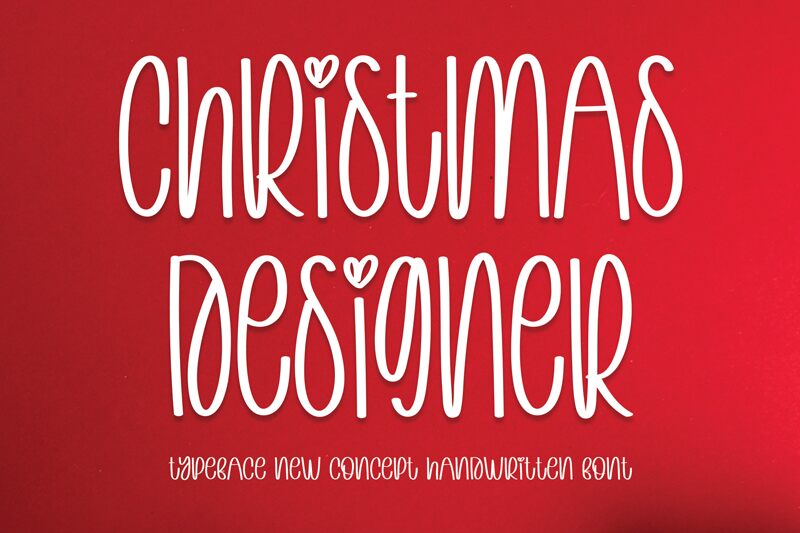
Christmas Designer
Christmas Designer by Scratchones is a charming handwritten font that exudes the warmth and joy of the holiday season. Its semi-light weight gives it a delicate touch, while the condensed width ensures it retains an elegant, space-efficient form. The playful yet sophisticated style of Christmas Designer makes it an excellent choice for heartfelt holiday cards, festive social media posts, and creative yuletide branding projects. Its personable appeal captures the essence of handwritten correspondence, providing a cozy and inviting vibe that is perfect for conveying messages filled with cheer and goodwill.
Whether used for invitations, product packaging, or seasonal advertising, Christmas Designer promises to infuse your designs with a sprinkle of Christmas magic.